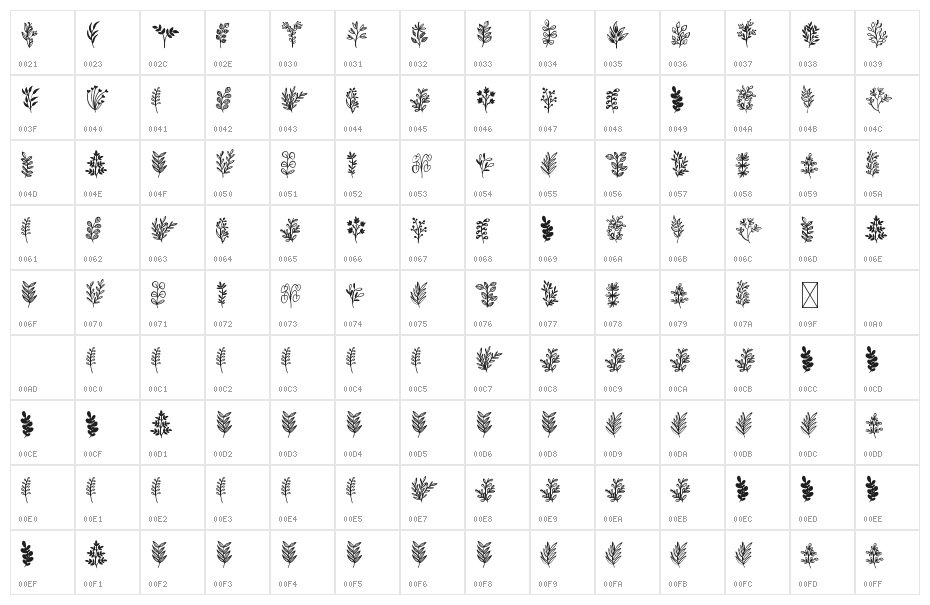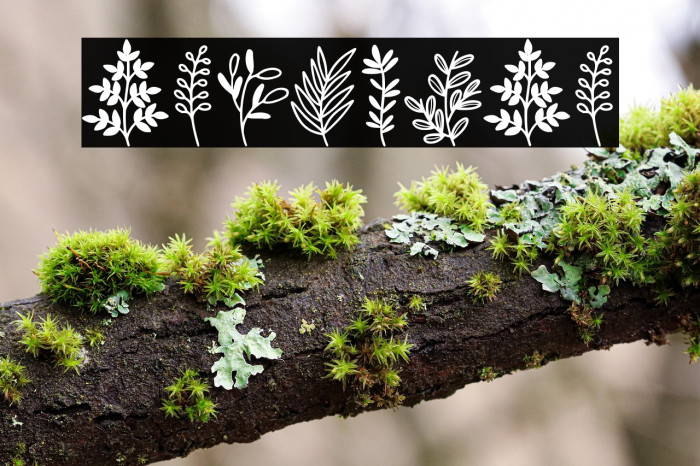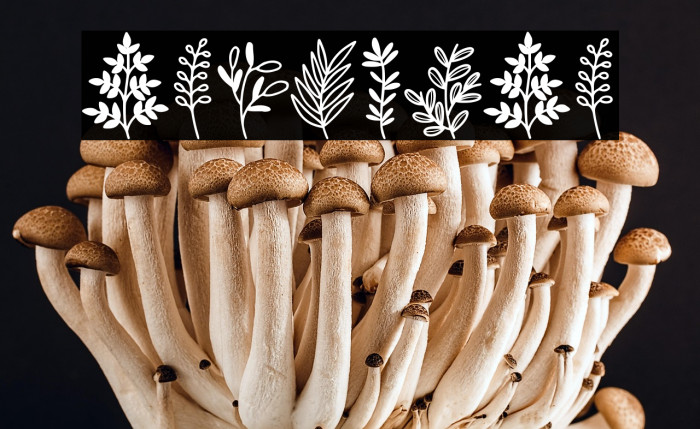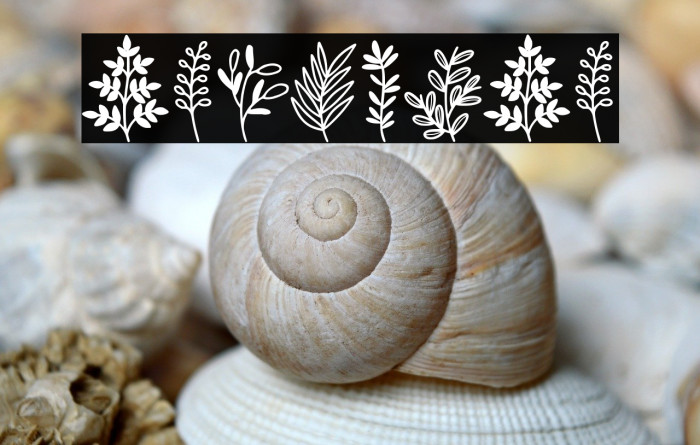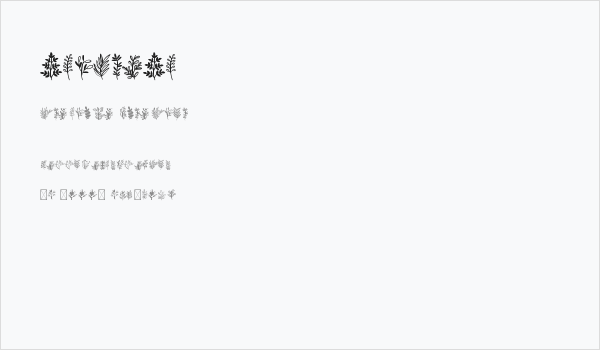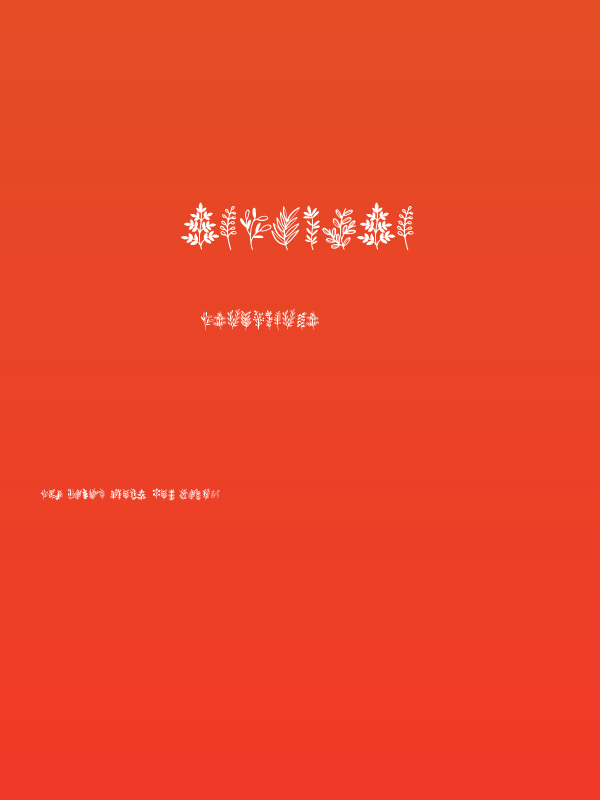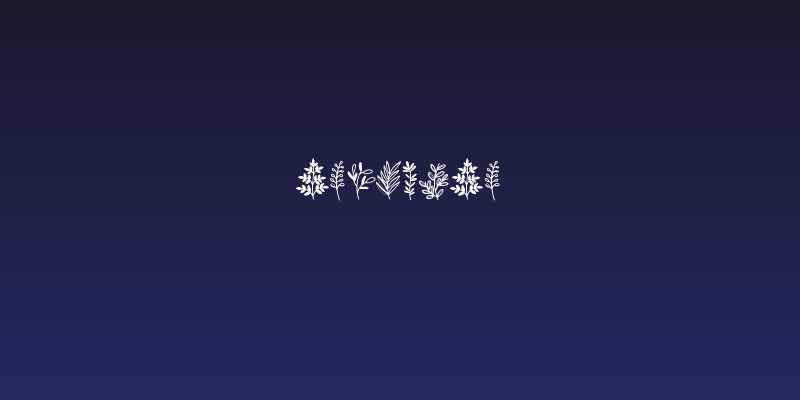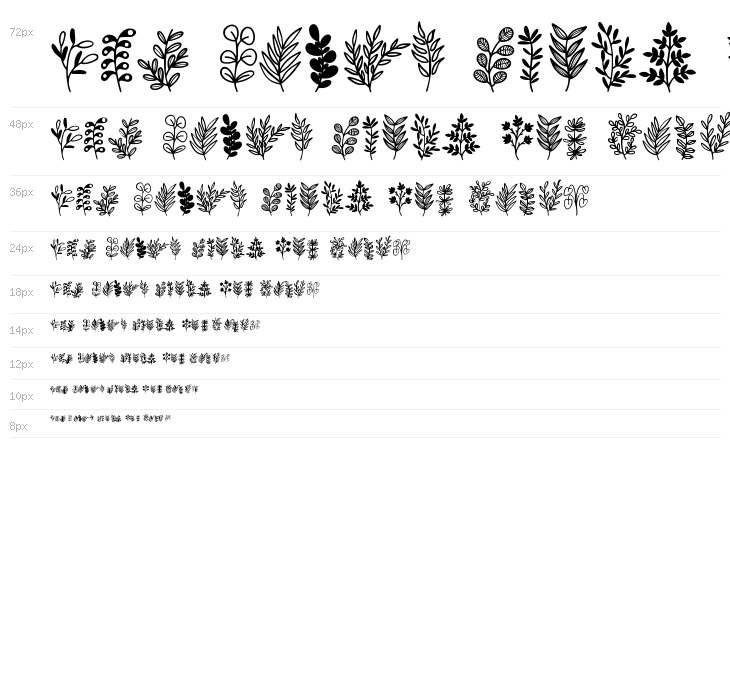
Naturena Font
Naturena Description
A decorative collection of hand-drawn botanical illustrations featuring various leafy branches and floral elements with a whimsical, organic style.
| Overall Style | Whimsical, Organic, Natural |
| Use Case | Decorative elements, logos, invitations, packaging |
| Proposed Projects | Ideal for nature-themed designs, greeting cards, wedding invitations, eco-friendly branding, and decorative accents in print or digital media. |